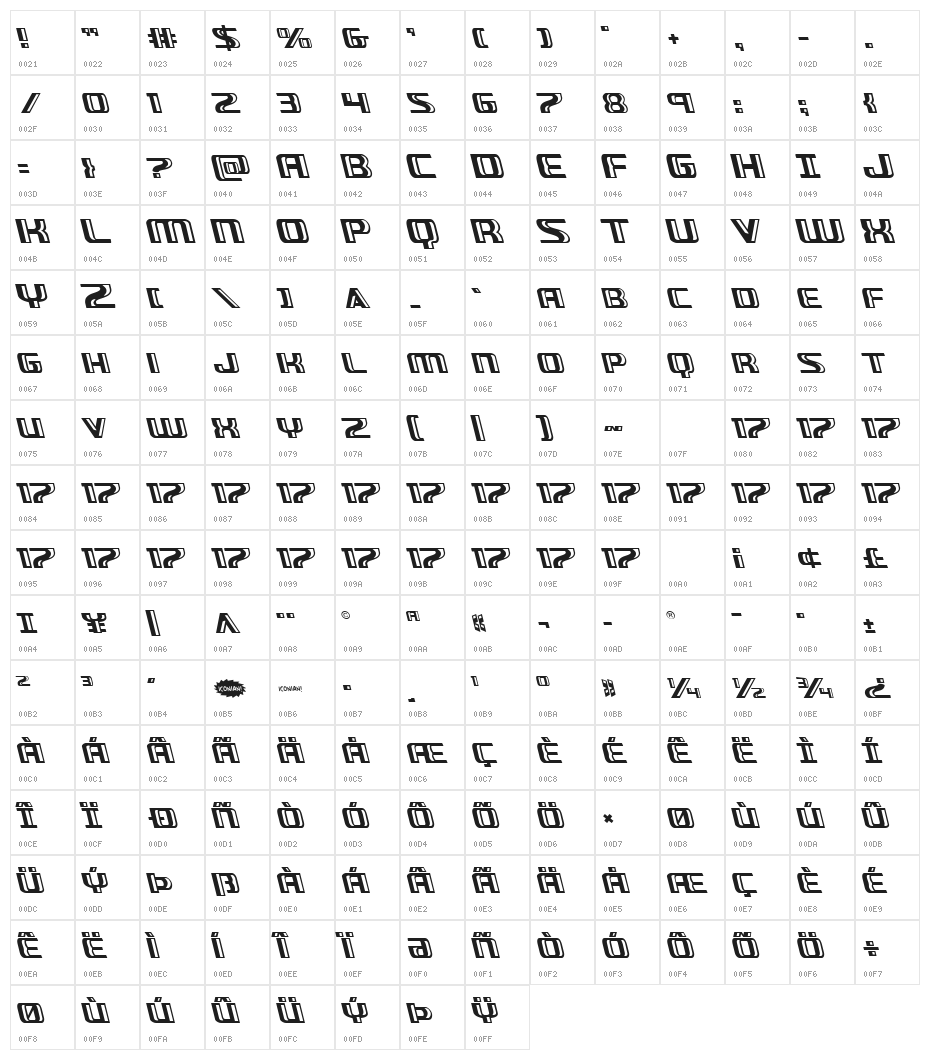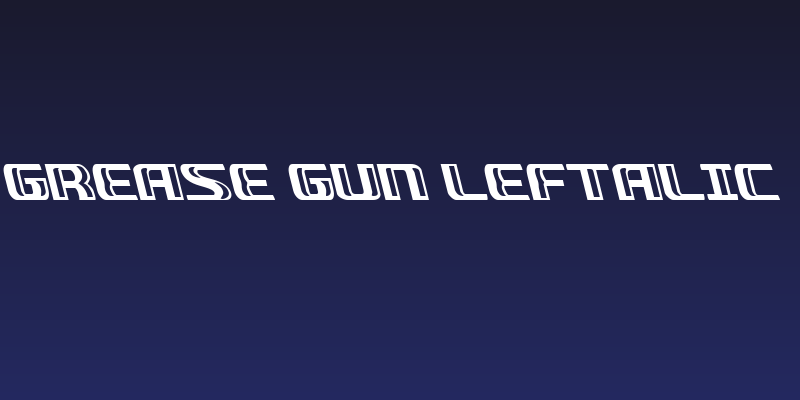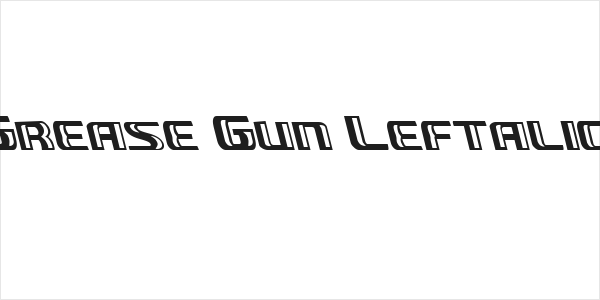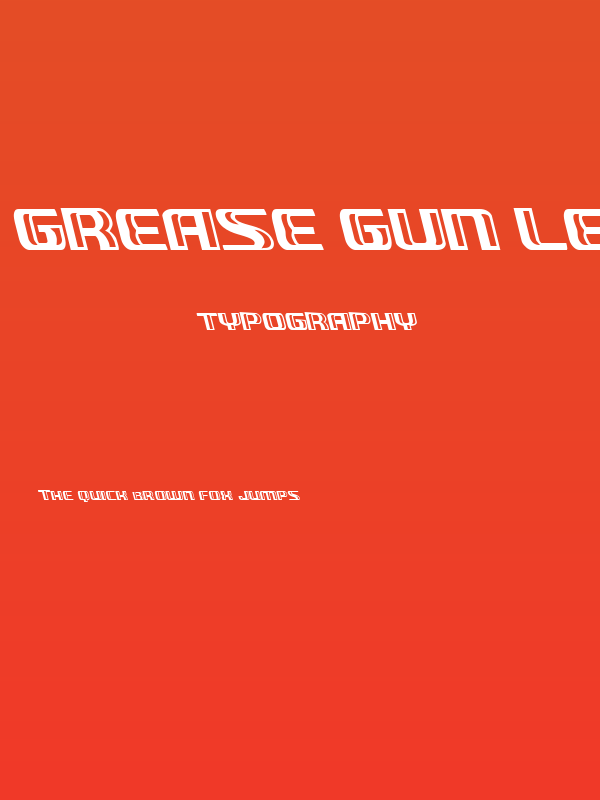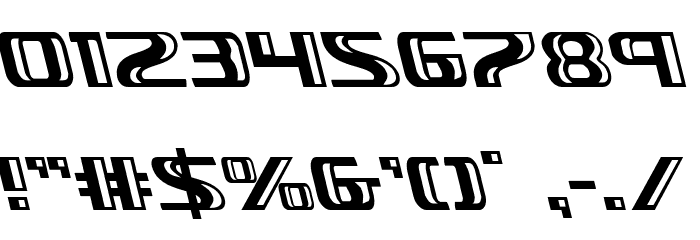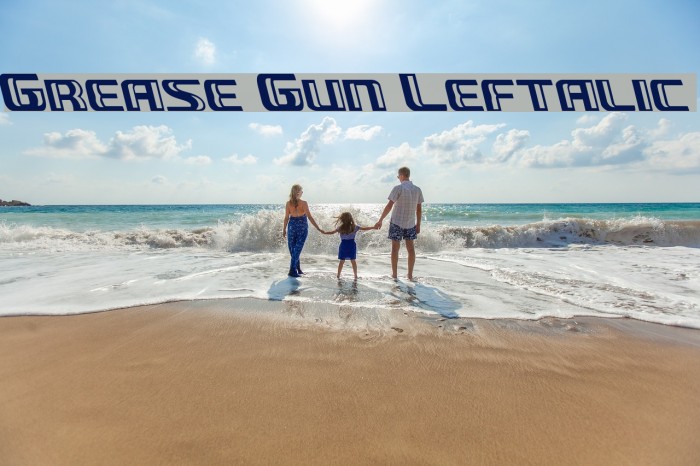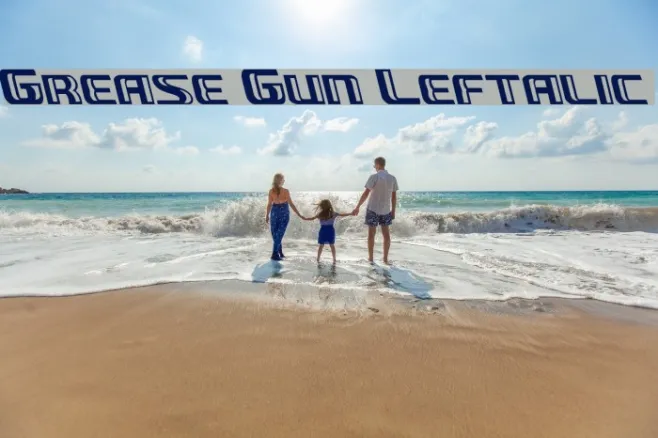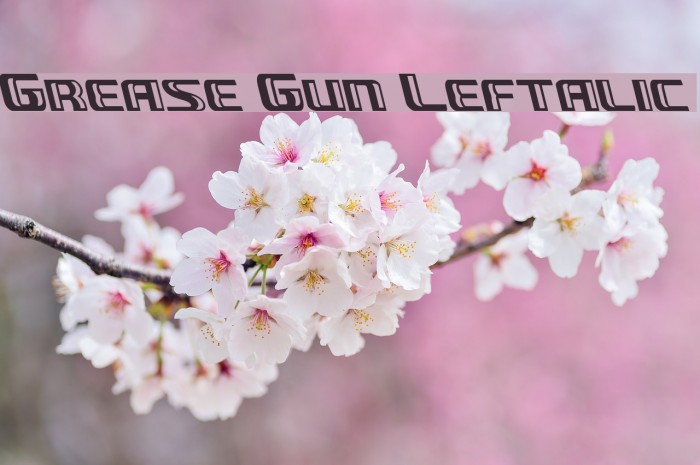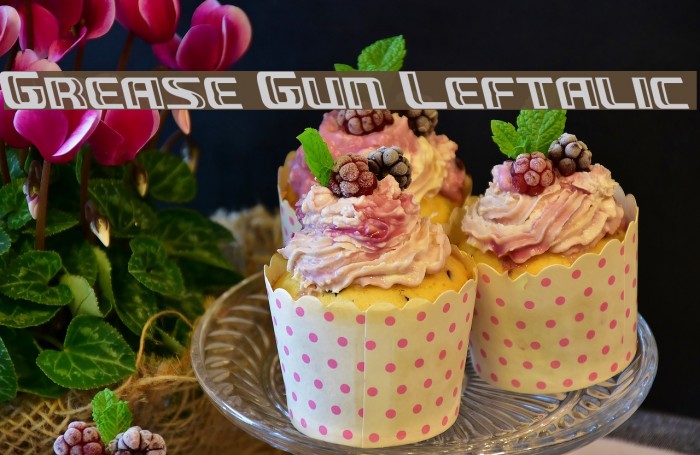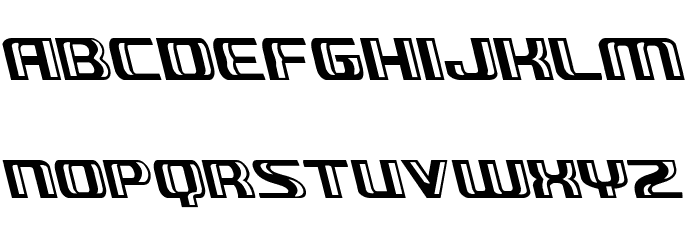
Grease Gun Leftalic Font
Grease Gun Leftalic Description
This font features a bold, industrial design with a distinct italic slant to the left. The characters are constructed with thick, blocky lines and a hollow interior, creating a striking outline effect. The uppercase letters are uniform in height, while the lowercase letters maintain a consistent style that complements the uppercase. Numbers and special characters follow the same design principles, ensuring a cohesive look across all glyphs. The font's geometric shapes and sharp angles give it a futuristic and mechanical appearance, making it ideal for projects that require a strong, impactful visual presence.
| Overall Style | Futuristic, Industrial |
| Proposed Projects | Ideal for branding, posters, and signage that require a bold, futuristic look. |